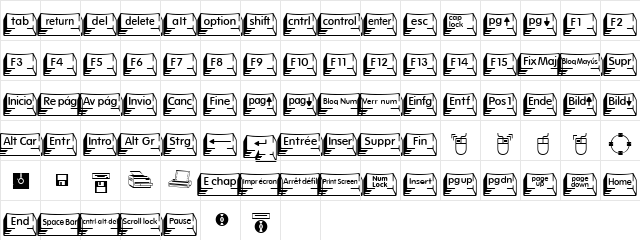
KeycapsExtended BT Regular
Design Context for KeycapsExtended BT
KeycapsExtended BT is a composed and adaptable typeface that performs quietly and consistently across a wide range of design contexts.